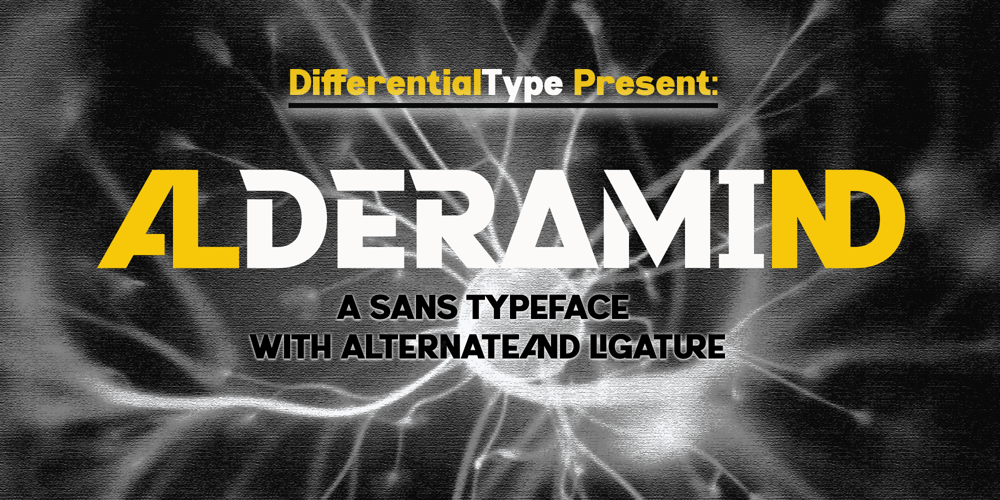
Alderamind Font Family was designed by Sidik Sidik and published by Differentialtype. Alderamind contains 2 styles and family package options. Alderamind is a modern-themed san serif font with alternates and ligatures in it. You will get as if two fonts from Alderamind, because Alderamind has a full alternate in the uppercase. This font is perfect for logos, as well as other needs. immediately get our best offer.